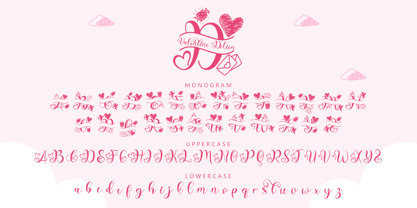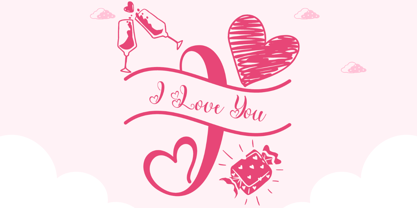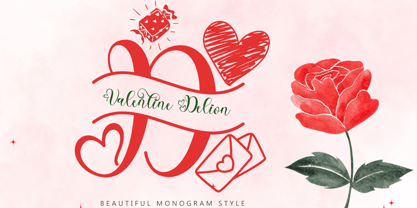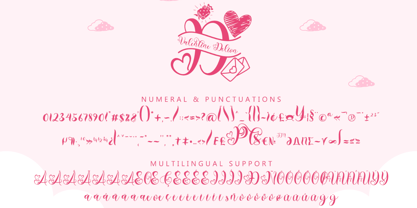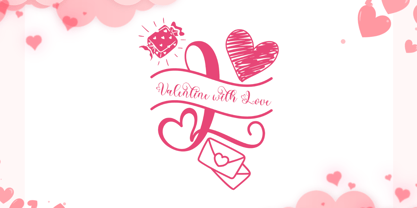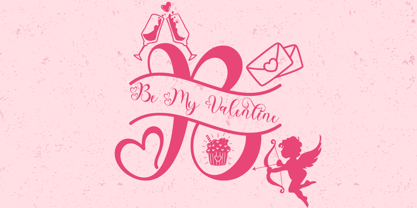
Valentine Delion
by Yoga Letter
The Valentine Delion Font Family was designed by Isroni Yoga Prasetya and published by Yoga Letter. Valentine Delion contains 2 styles and family package options. More about this family
"Valentine Delion Monogram" is a very beautiful monogram handwritten font. This font is equipped with uppercase, lowercase, monogram, numeral, punctuations and multilingual support. This font is very suitable for use for valentine, wedding, party, birthday, invitations, logo, sticker and others.